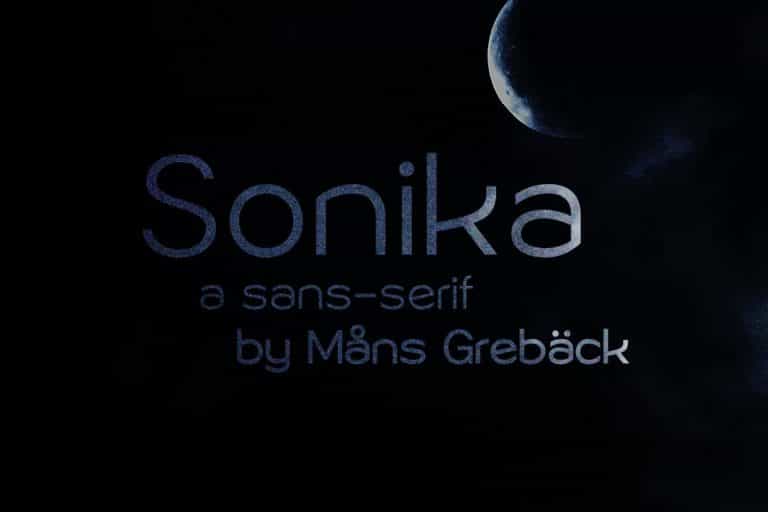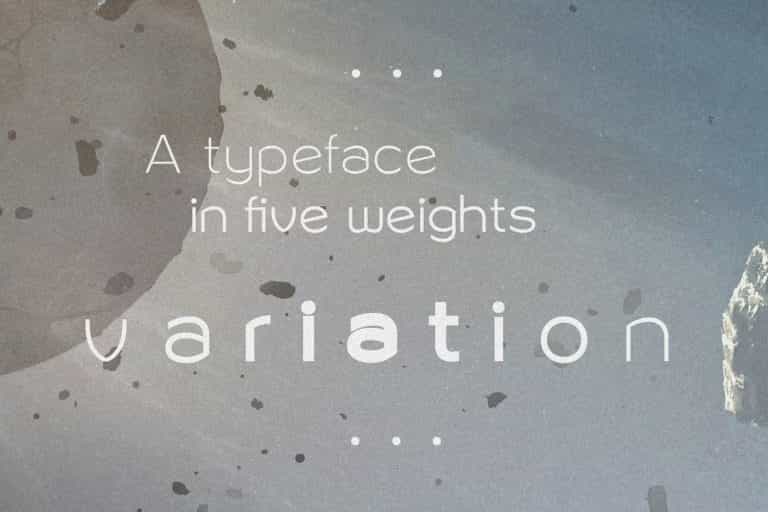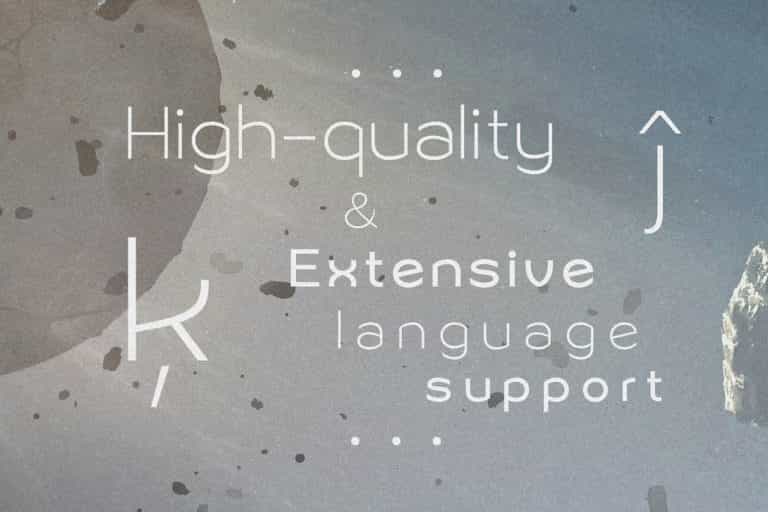
Sonika Sans Serif Font. It’s sleek and Futuristic look making it much more low-key, versatile, and functional that unexpectedly add a reputable personality to your project. Sonika inspired by modern sans serif and display typography. Sonika is a sans-serif font family. It was designed and shared by Måns Grebäck. Sonika is a sleek sans-serif typeface. With Space ways curves and sharp corners, making it a typeface to make your project forward-looking.